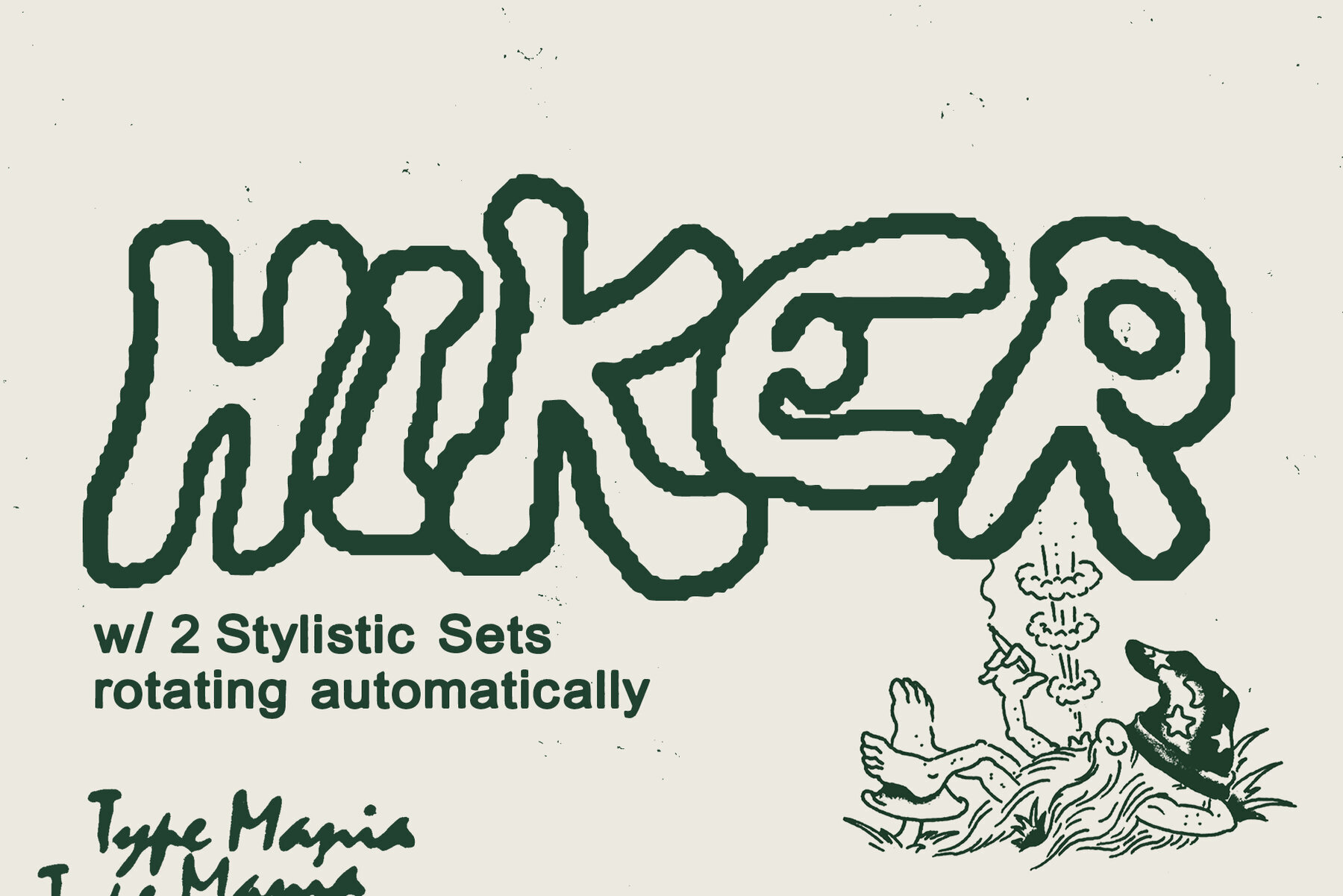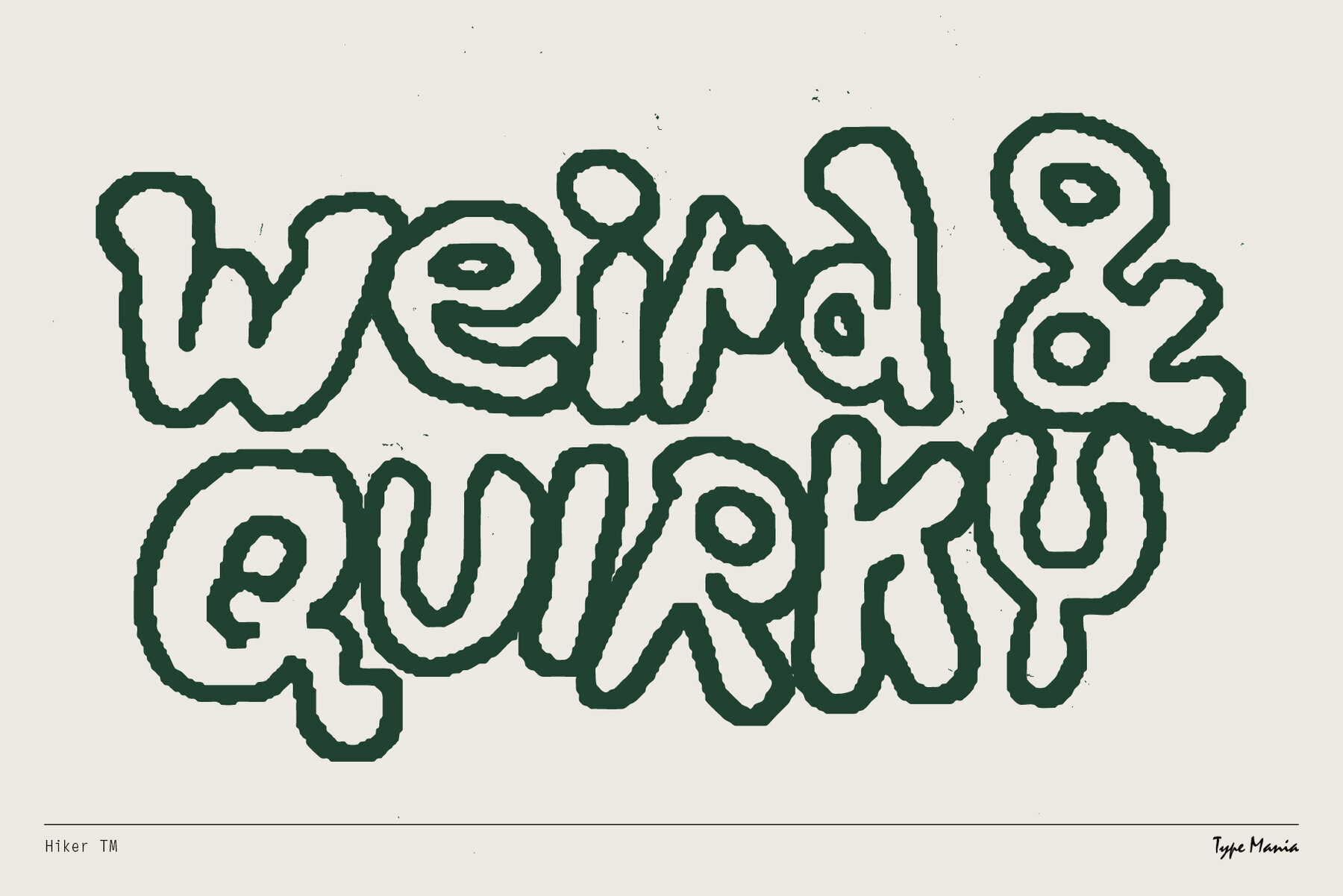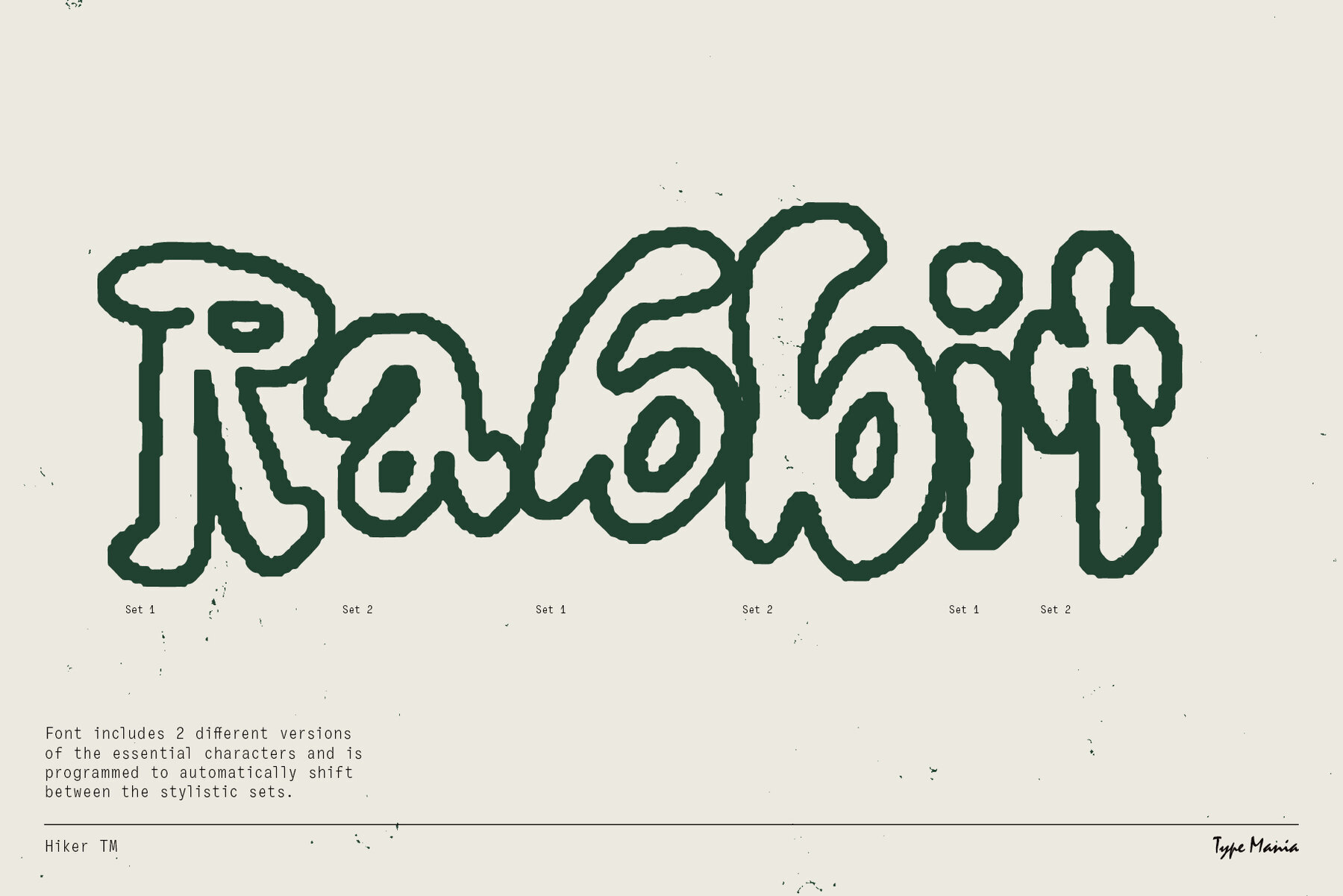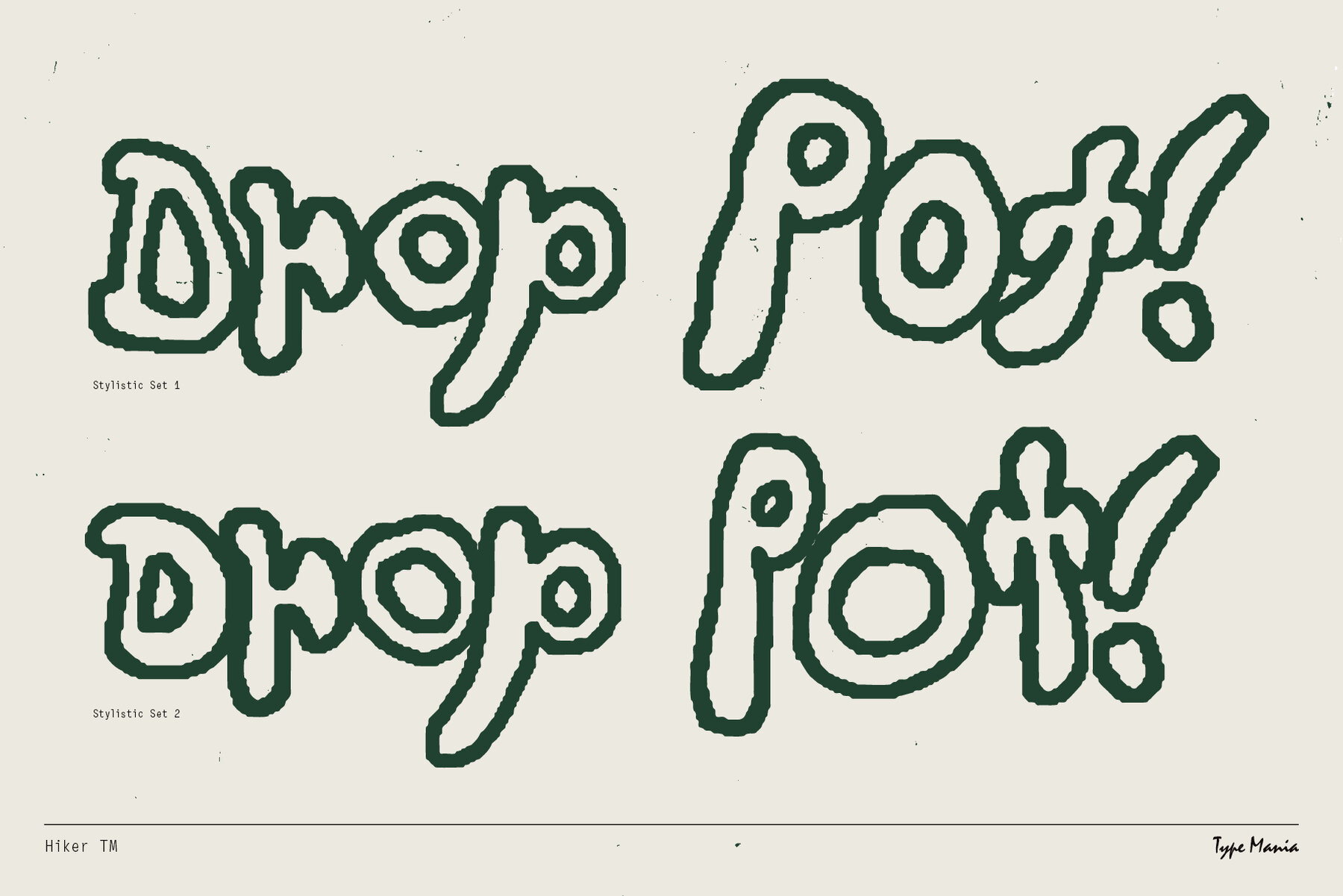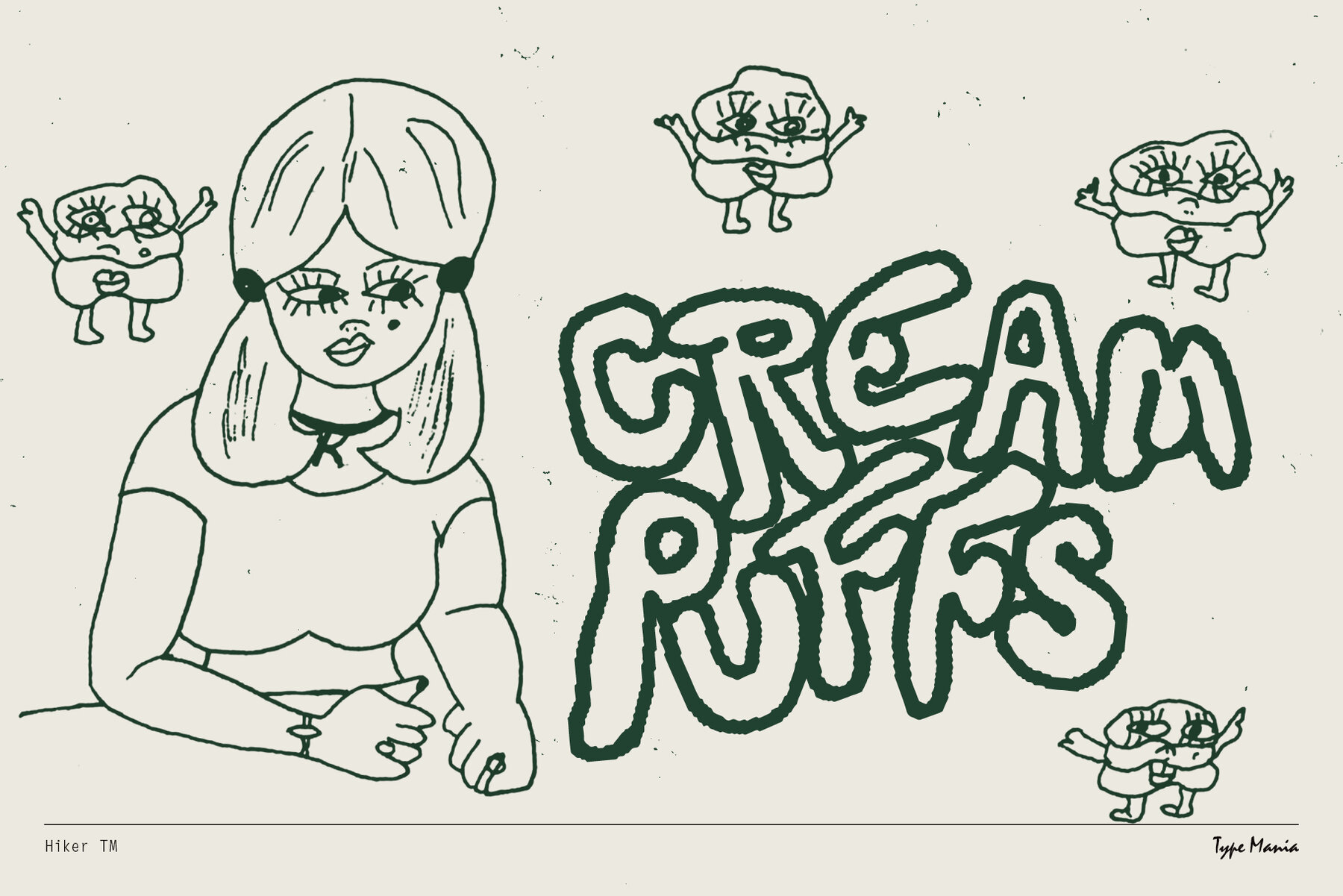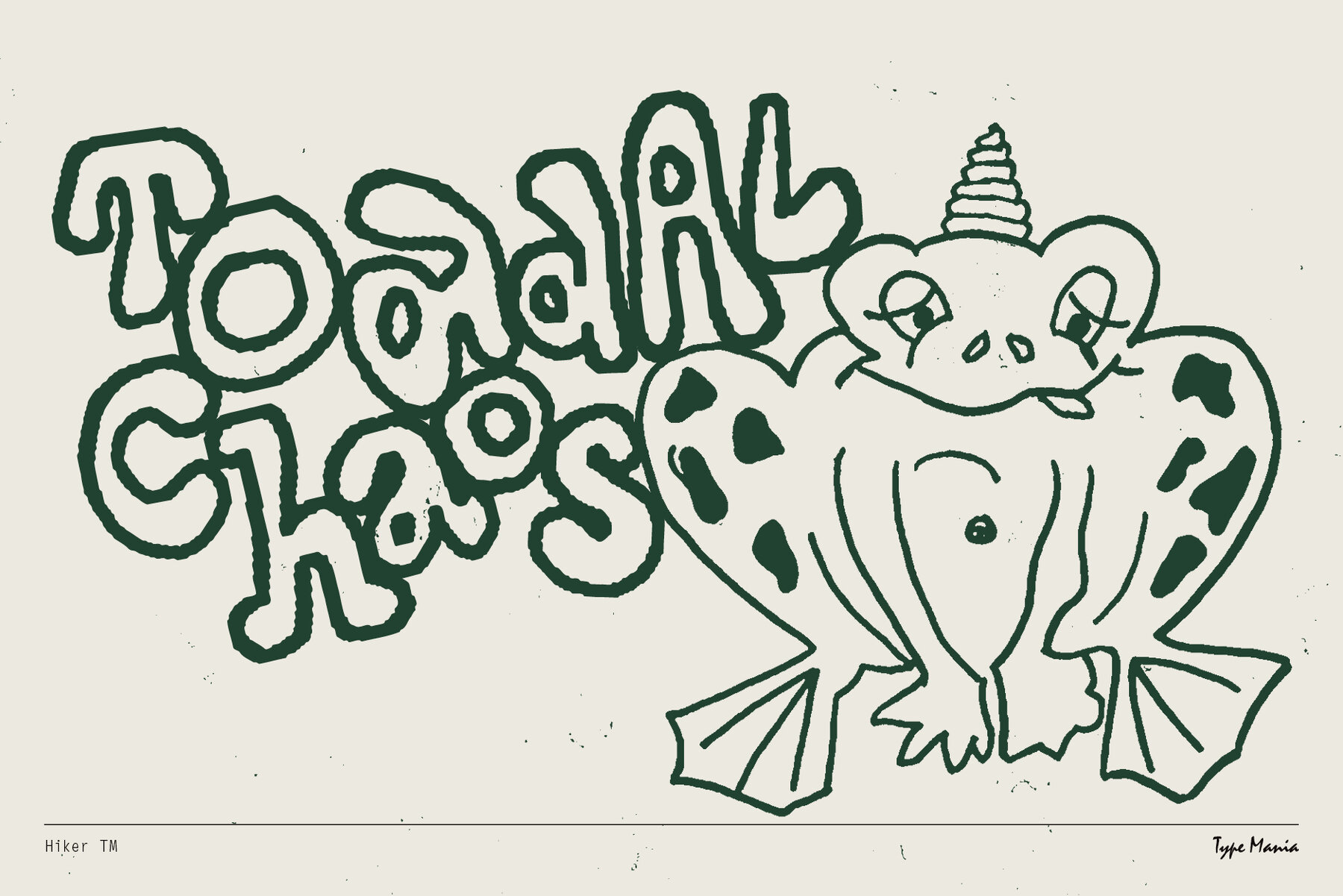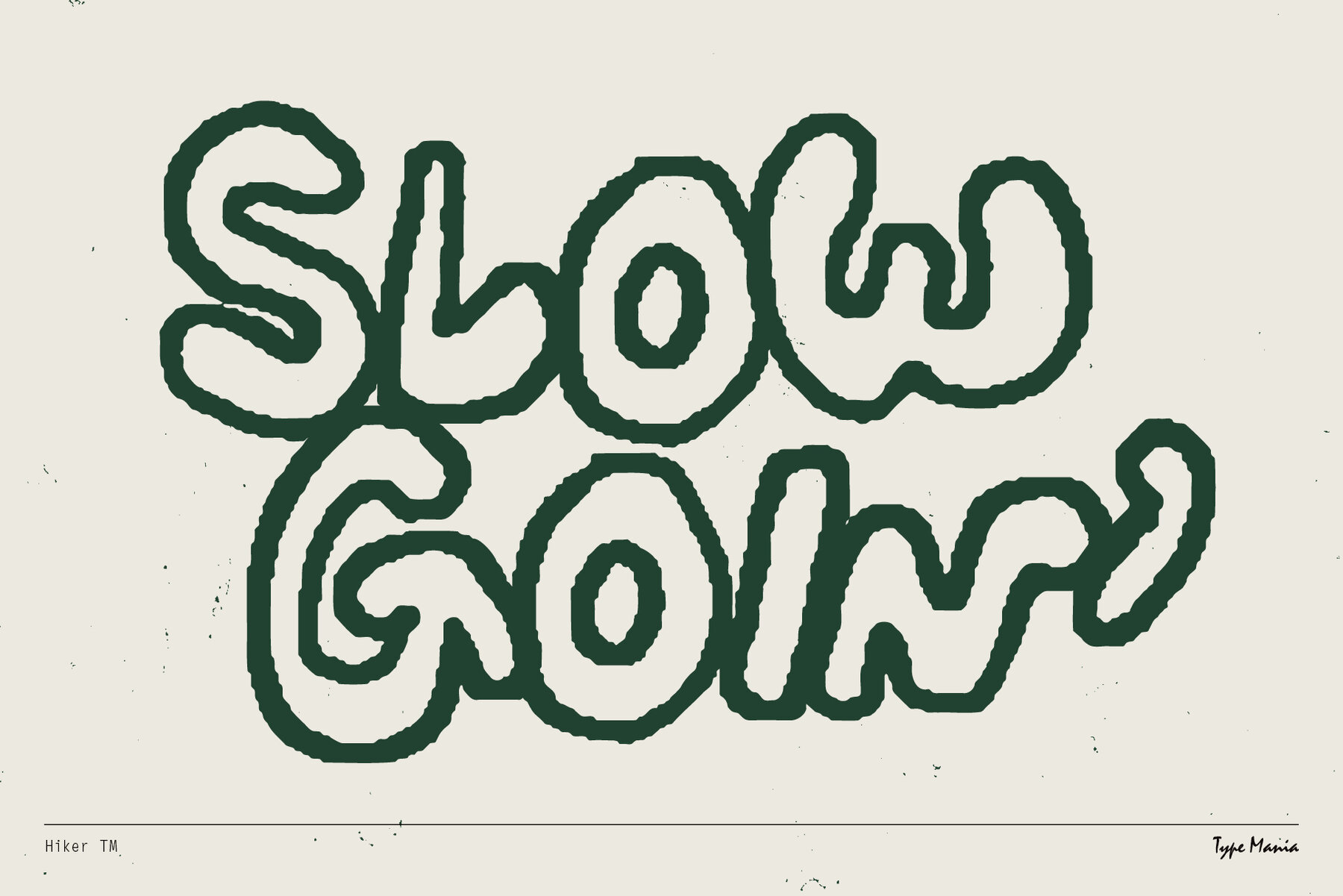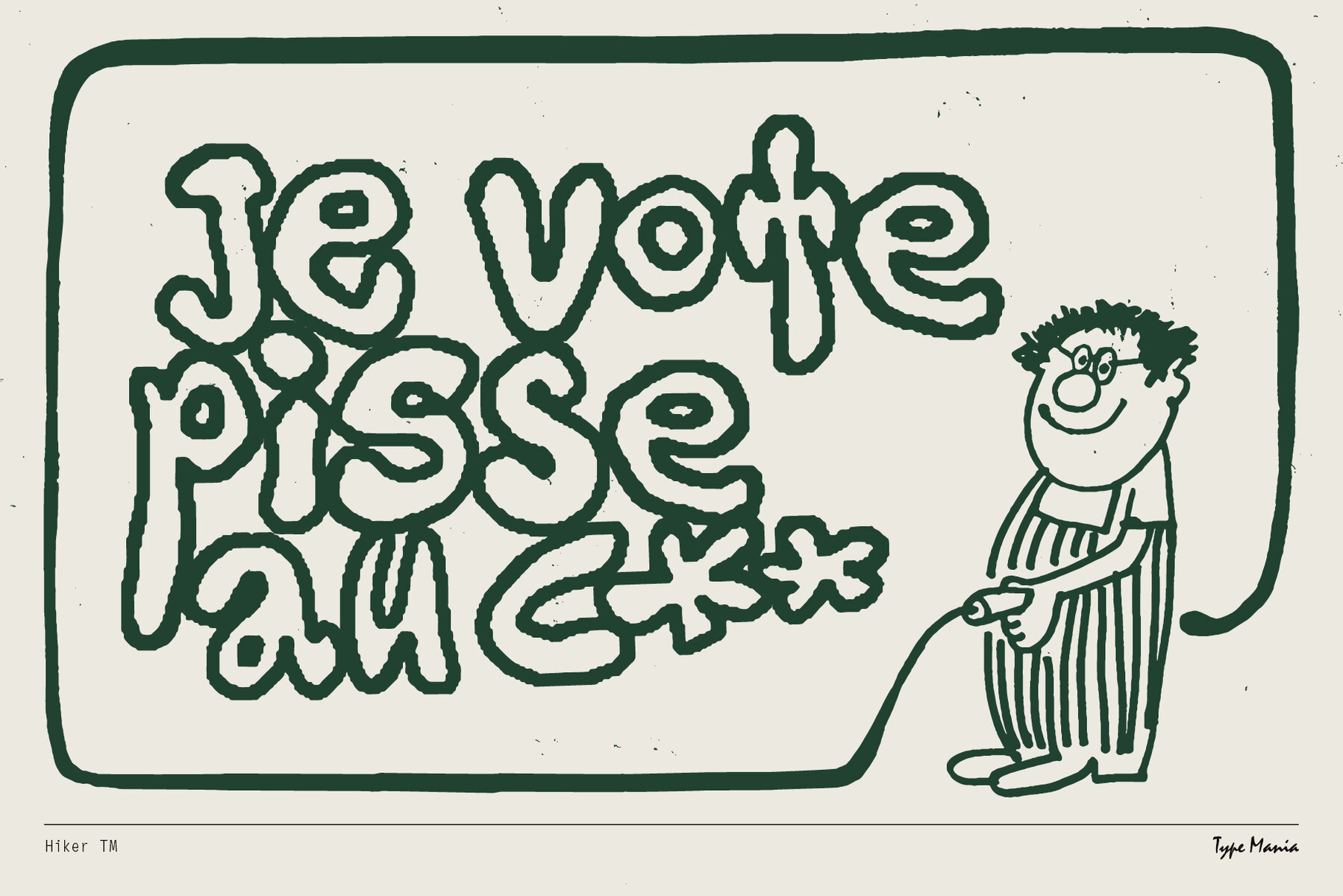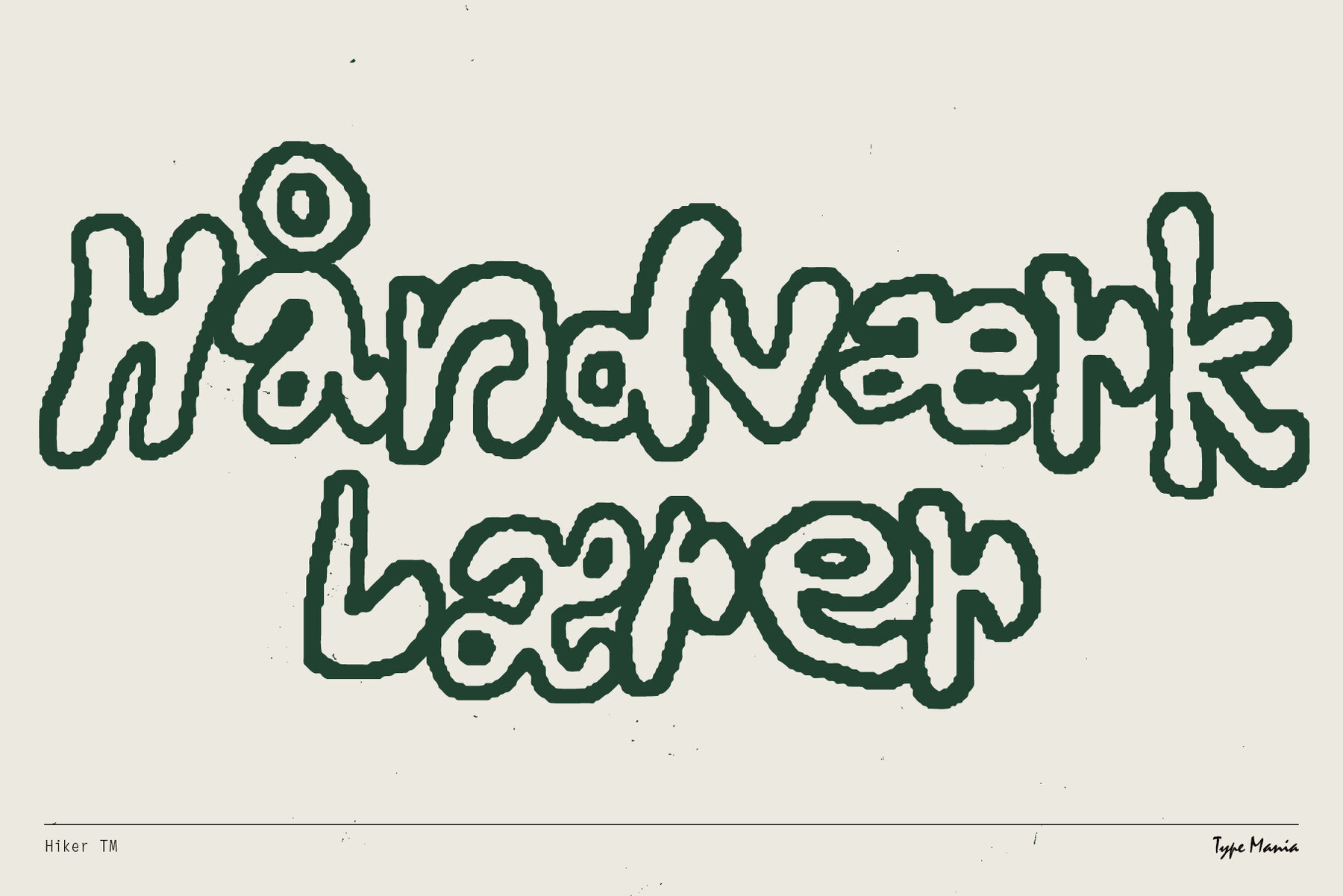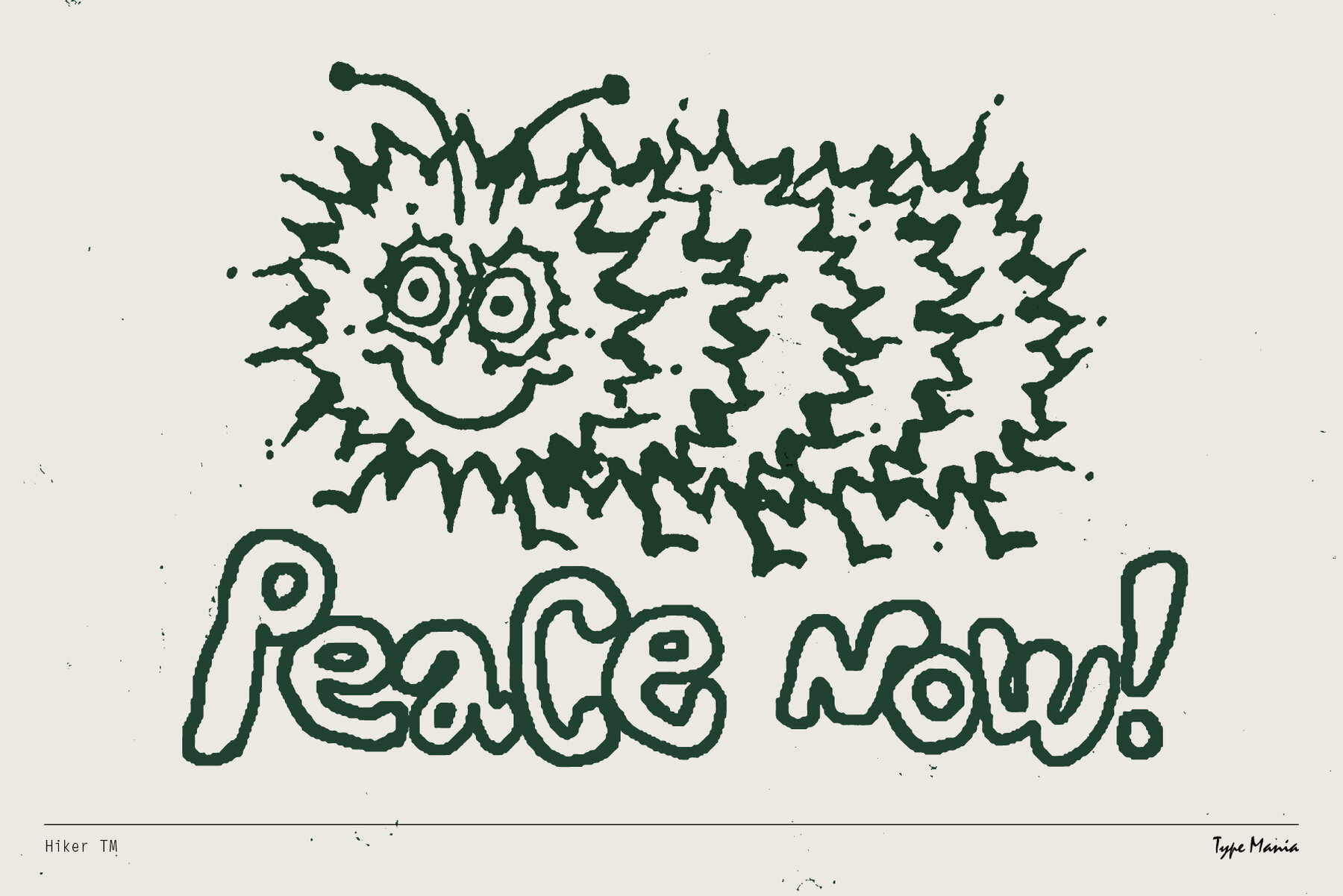
Hiker TM Font
hiker TM Regular
Hiker TM is your go-to for unique and unconventional handwriting vibes. Operating on the more underground end of the spectrum, this style works well on flyers, posters, branding, and campaigns –provided the client fits the aesthetic. Enjoy. OpenType features Languages